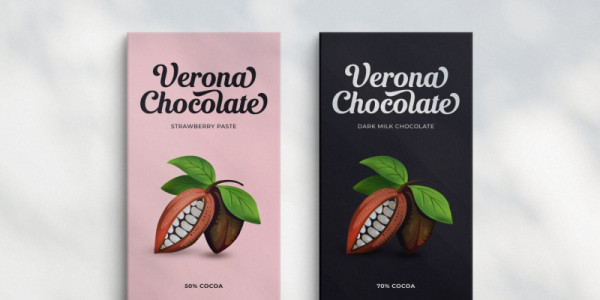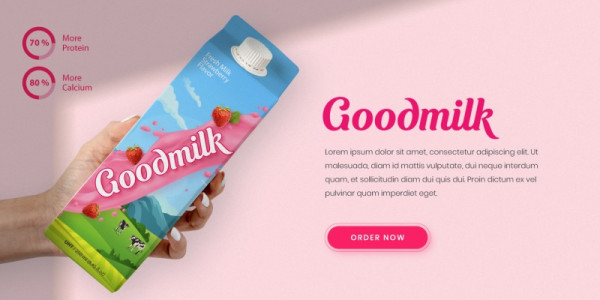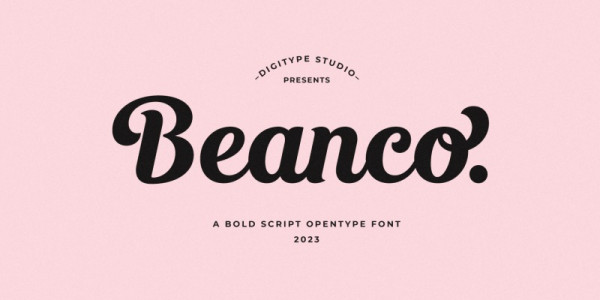
Beanco Font
Beanco Font is a bold script font with OpenType features. This font is perfectly made to be applied especially in logos, and other various formal forms such as invitations, labels, logos, books, greeting/wedding cards, packaging, fashion, makeup, stationery, novels, or any advertising purpose.